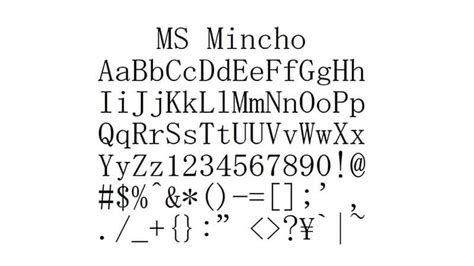
Ms Mincho Font. Ms mincho™ japanese font features serifs at the end of its strokes, and can be used for a variety of uses from.
Ms mincho™ japanese font features serifs at the end of its strokes, and can be used for a variety of uses from.
Ms mincho™ japanese font features serifs at the end of its strokes, and can be used for a variety of uses from. Ms mincho™ japanese font features serifs at the end of its strokes, and can be used for a variety of uses from.